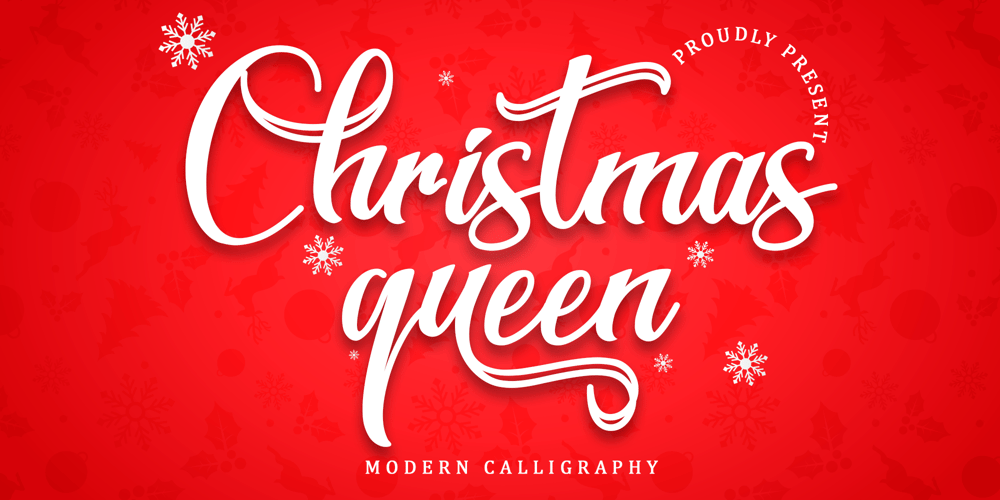
Christmas Queen
Christmas Queen font
Christmas Queen Font Family was designed by Alif Ryan Zulfikar and published by Sakha Design. Christmas Queen contains 2 styles and family package options. Christmas Queen is a dazzling script font. This font is neatly crafted and highly detailed. Whatever the topic, Christmas Queen will be a wonderful asset to your font library, as it has the potential to enhance any creation.